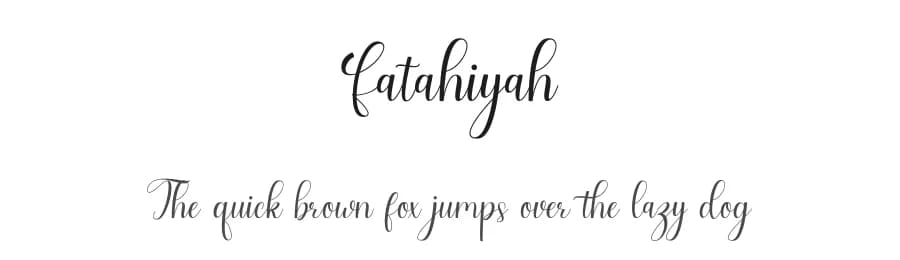
About Fatahiyah Font
Fatahiyah Specifications
| Font Family | Fatahiyah |
| Style | Fatahiyah |
| Full Name | Fatahiyah |
| Glyph Count | 312 glyphs |
| PostScript Name | Fatahiyah |
| Designer | MUHAMMAD YONI |
Fatahiyah supports 201 languages.
Fatahiyah Font is a script font that shines as a display or heading face. Pair it with a clean sans-serif or serif font for body text β the contrast creates a clear hierarchy while the two styles stay balanced and easy to read.
Fatahiyah Font